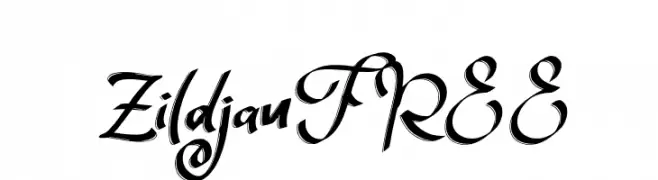
A bold, expressive script font with flowing cursive letters.
A bold and elegant script font with flowing cursive letters.
A dynamic and flowing script font with elegant, cursive letterforms.
A bold, fluid script font with interconnected letters and expressive strokes.
A bold, cursive handwritten font with expressive strokes and fluid connections.
A bold, playful handwritten font with a lively and energetic style.
A playful, bold handwritten font with smooth, rounded edges.
A graceful and flowing script font with elegant, cursive strokes.
A dynamic and elegant script font with flowing, connected letterforms.
An elegant, flowing script font with dynamic, connected letterforms.